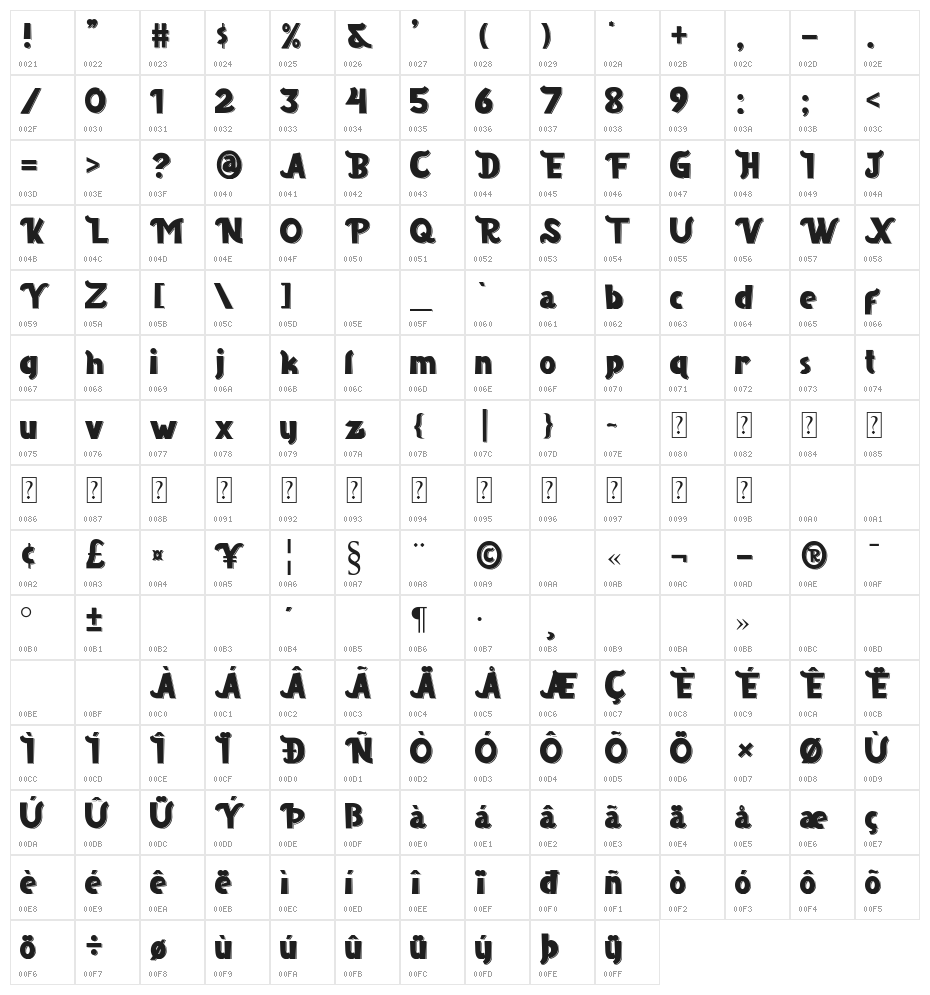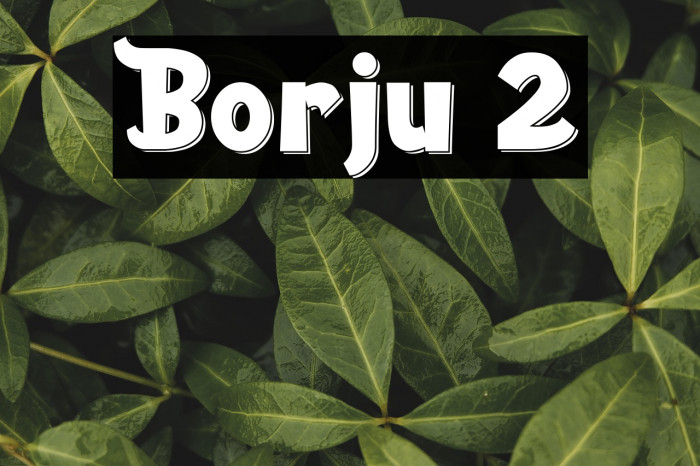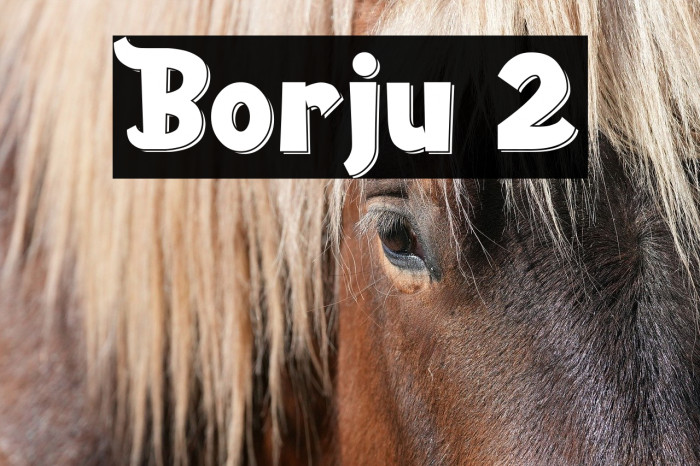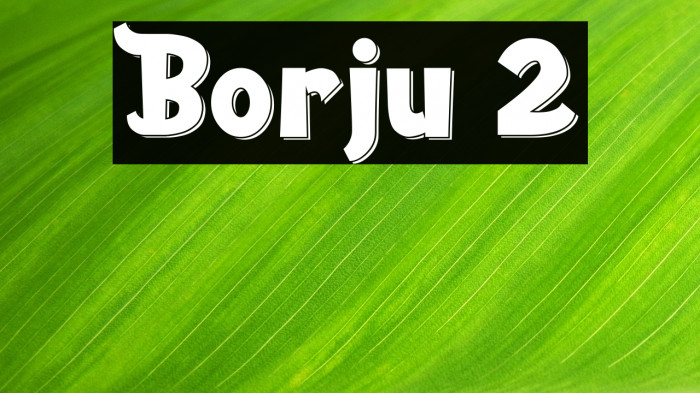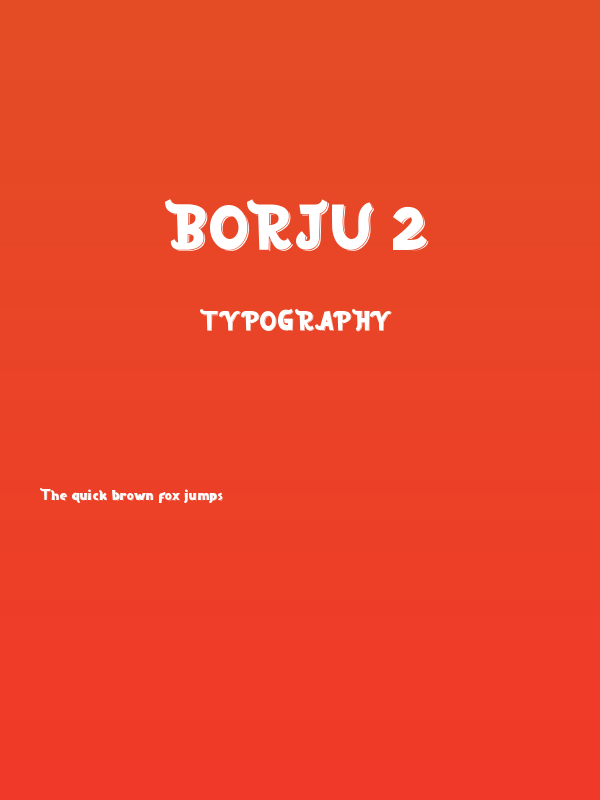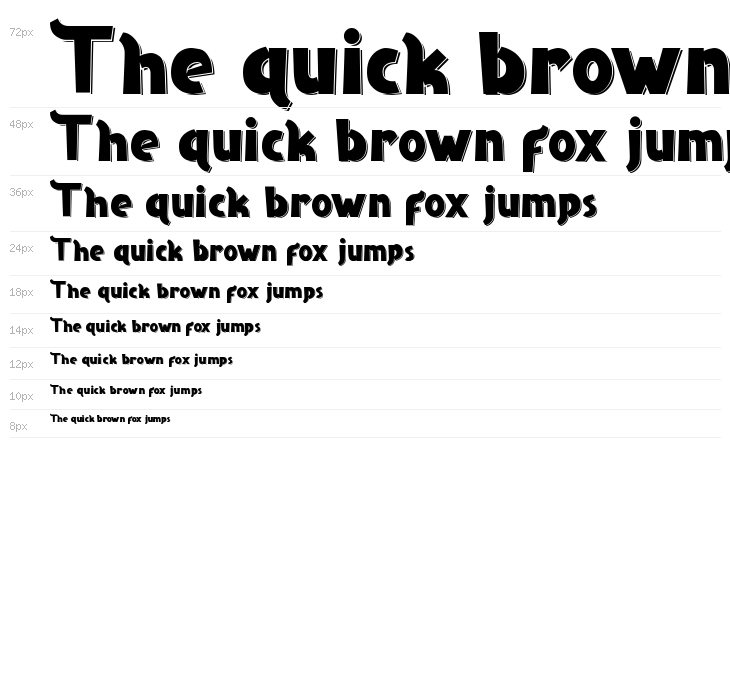
Borju 2 Font
Borju 2 Description
This font features a bold and playful style with a strong presence. The characters are thick and have a slight shadow effect, giving them a three-dimensional appearance. The uppercase letters have a unique flair with exaggerated serifs and curves, while the lowercase letters maintain a consistent boldness. The numbers are equally bold, ensuring readability and impact. Special characters are designed with the same attention to detail, making them stand out. This font is ideal for projects that require a fun and dynamic look.
| Overall Style | Playful, Bold, Decorative |
| Proposed Projects | Ideal for posters, logos, children's books, and any project needing a fun, bold typeface. |